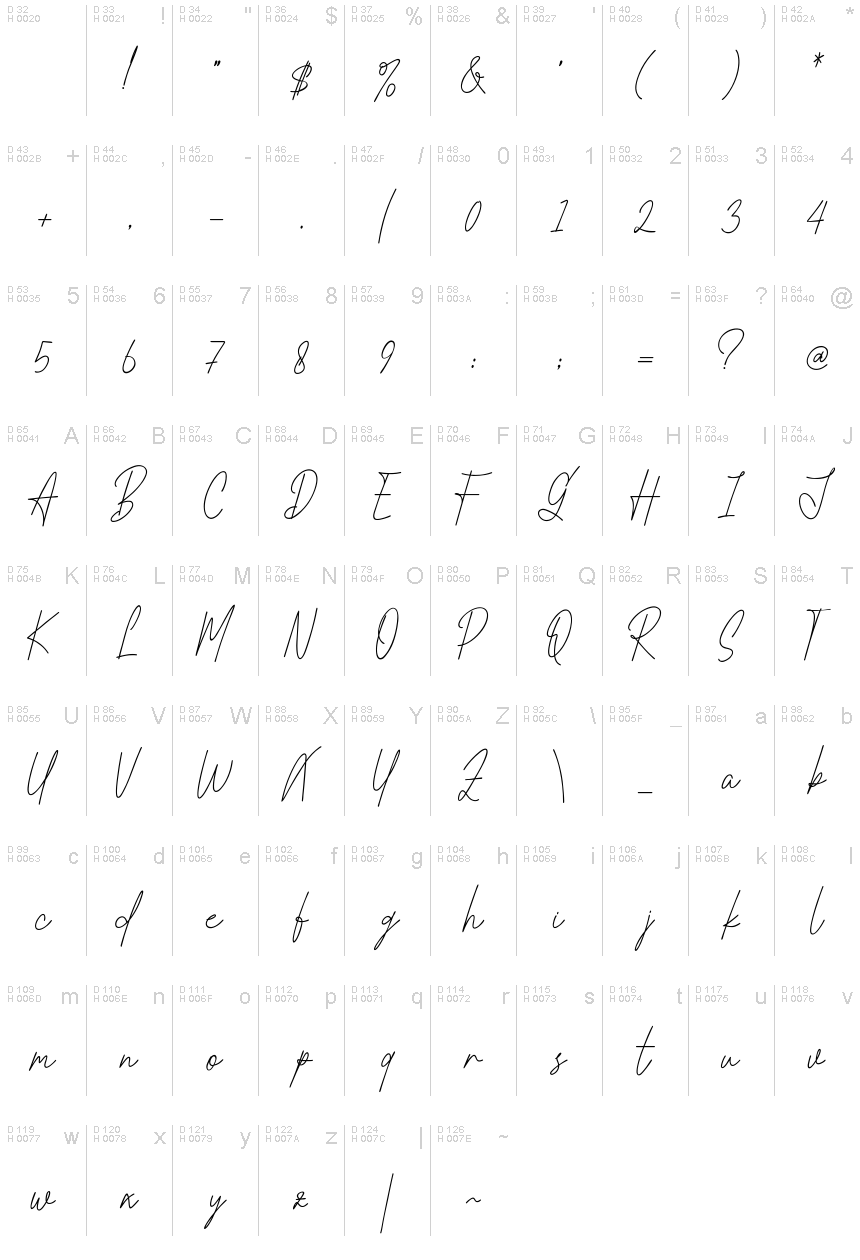
Rotella
Rotella, crafted by the talented Khurasan, is a semi-light and condensed handwritten font that exudes charm and personality. Its elegant curves and fine lines create a delicate balance, making it both approachable and sophisticated. The unique flair of Rotella’s characters brings a bespoke quality to any project, offering designers a versatile tool for conveying warmth and individuality.
This font's aesthetic appeal lies in its ability to blend casual handwriting with refined grace. Perfect for invitations, branding materials, or editorial designs where personality is key, Rotella enhances text with its distinctive style without overwhelming the content. The semi-light weight ensures legibility while maintaining an airy presence on the page.
Whether you're aiming to add an artisanal touch to your design or seeking a font with both character and clarity, Rotella stands out as an exquisite choice that will elevate your creative projects with its stylish handwritten appeal.
This font's aesthetic appeal lies in its ability to blend casual handwriting with refined grace. Perfect for invitations, branding materials, or editorial designs where personality is key, Rotella enhances text with its distinctive style without overwhelming the content. The semi-light weight ensures legibility while maintaining an airy presence on the page.
Whether you're aiming to add an artisanal touch to your design or seeking a font with both character and clarity, Rotella stands out as an exquisite choice that will elevate your creative projects with its stylish handwritten appeal.